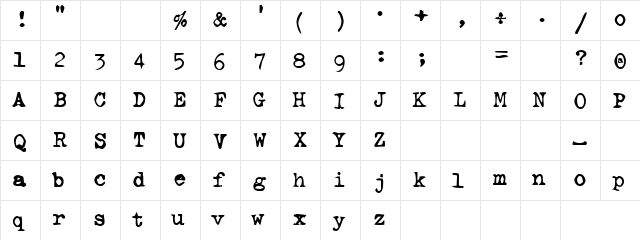
Virtual Ladder Regular
Design Context for Virtual Ladder Typeface
Virtual Ladder takes a measured approach to typography — its balanced proportions and neutral character make it a reliable workhorse for both digital and print work.